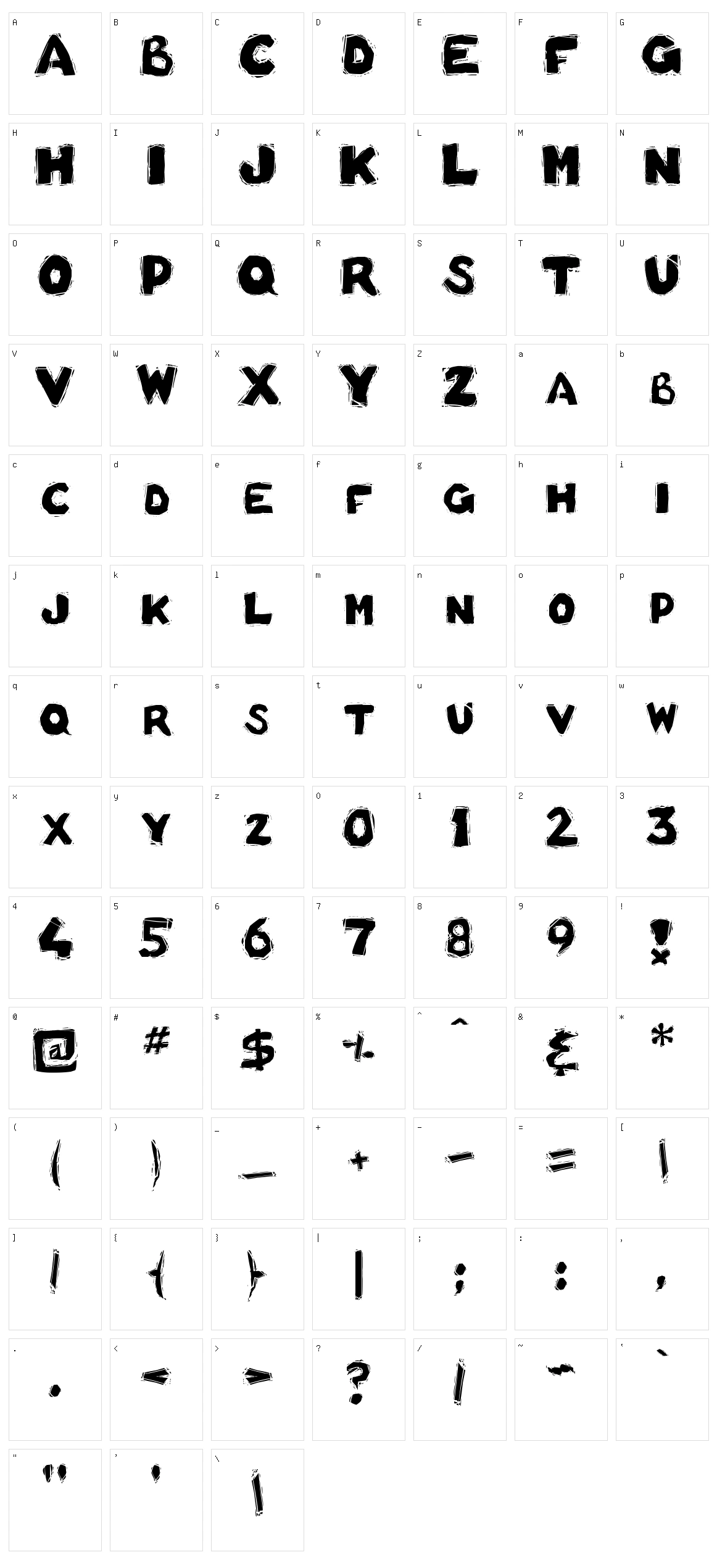
The free font Basket of Hammers is carefully designed by !Exclamachine Type Foundry, showcasing a thoughtful balance of creativity and usability and falls under the Horror font style. When you download the ZIP file, it contains only 73.81 KB of font files, making it lightweight and quick to download. Please review the license details below to understand permitted usage and distribution rights. If license information is not available, we recommend using this font for personal projects only or contacting the author directly for commercial usage permissions.